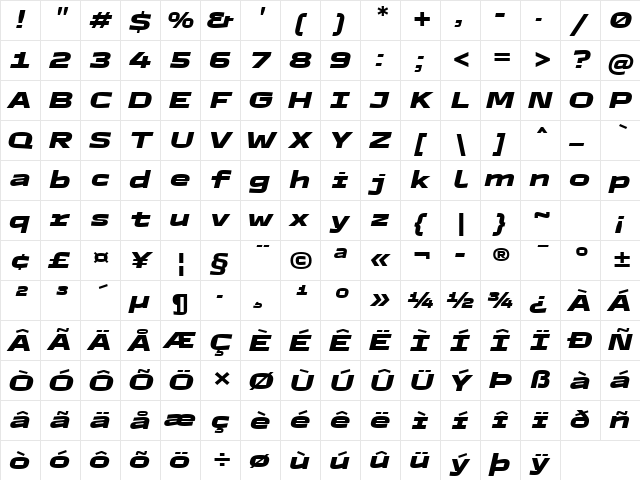
TT Autonomous Trl ExtraBold It
Style: ExtraBold It
Designer: Designed by TypeType. Designers Yulia Gonina, Antonina Zhulkova, Anna Tikhonova, Eugene Tantsurin. Technical designers Ivan Gladkikh, Yuri Nako, Victor Rubenko, Kirill Maslov.
Complete TT Autonomous Trl ExtraBold It glyph index. Displaying only characters natively supported by TT Autonomous Trl ExtraBold It font.
Design Context for TT Autonomous Trl
TT Autonomous Trl is a composed and adaptable typeface that performs quietly and consistently across a wide range of design contexts. Its bold stroke weight gives it real presence on the page.